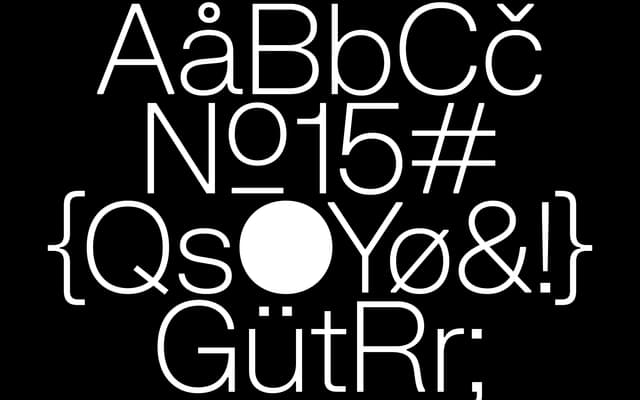
FK Grotesk Neue
Florian Karsten · Florian Karsten
A neo-grotesque sans drawing on Helvetica and Univers but pushing towards wider proportions and more mechanical outlines.
Florian Karsten's FK Grotesk Neue takes the familiar cues of the neo-grotesque genre, the double-storey 'a', the splayed 'R', and runs them through a more rigid, lower-contrast lens. Wider proportions borrowed from FK Grotesk and a leaning toward geometric construction distinguish it from the Swiss originals it references. OpenType features include stylistic alternates, a thin punctuation set and a wide range of numeral variants, with coverage across Western, Central and Southeastern European Latin scripts plus Vietnamese.
Directly inspired by Helvetica and Univers, the canonical neo-grotesque references, but takes a more geometric and mechanistic approach with lower contrast and wider proportions than its predecessors.